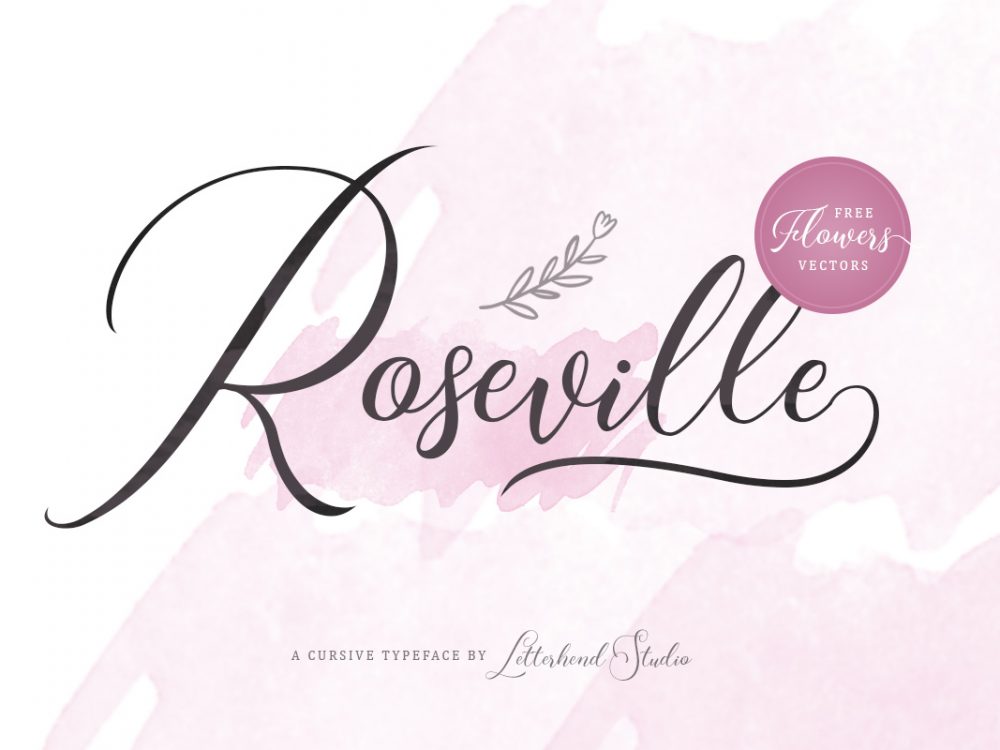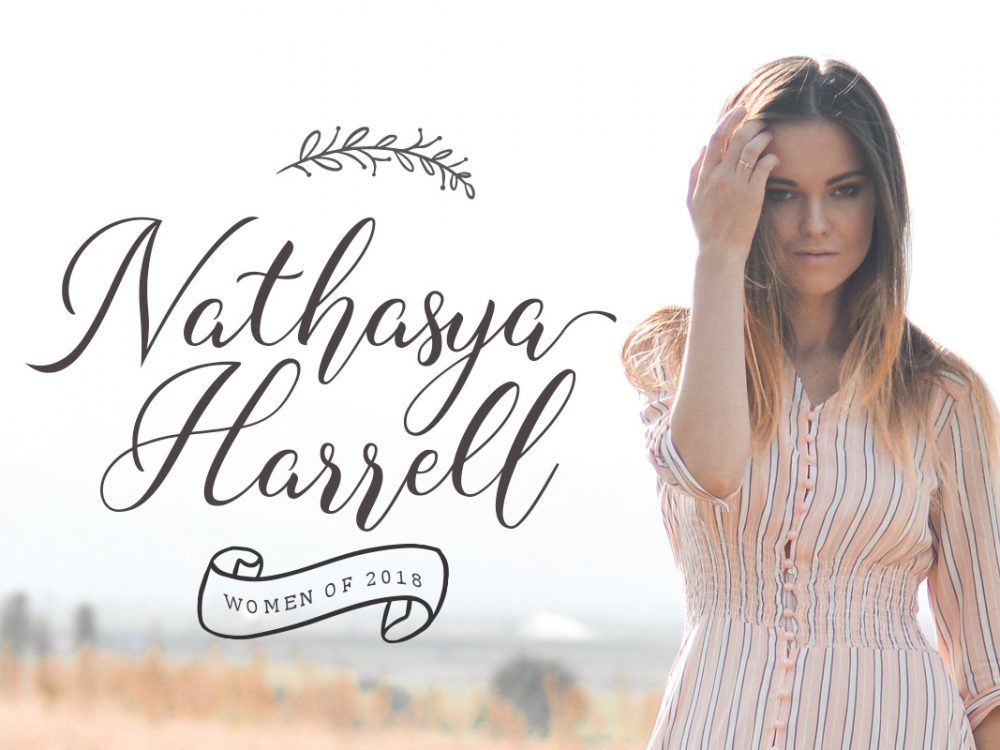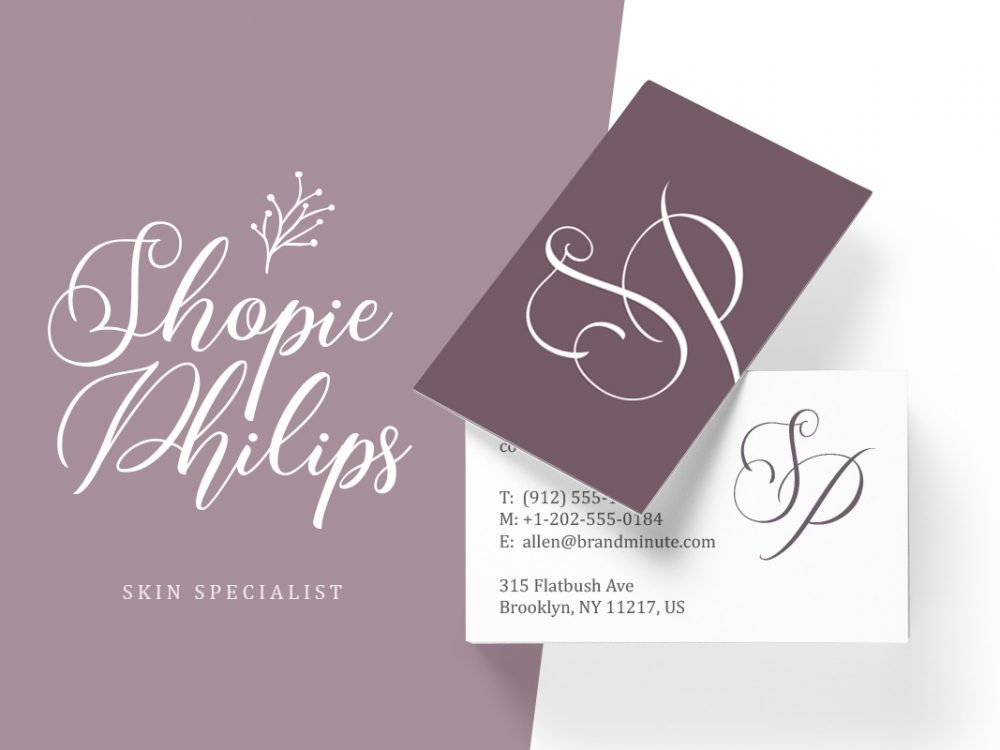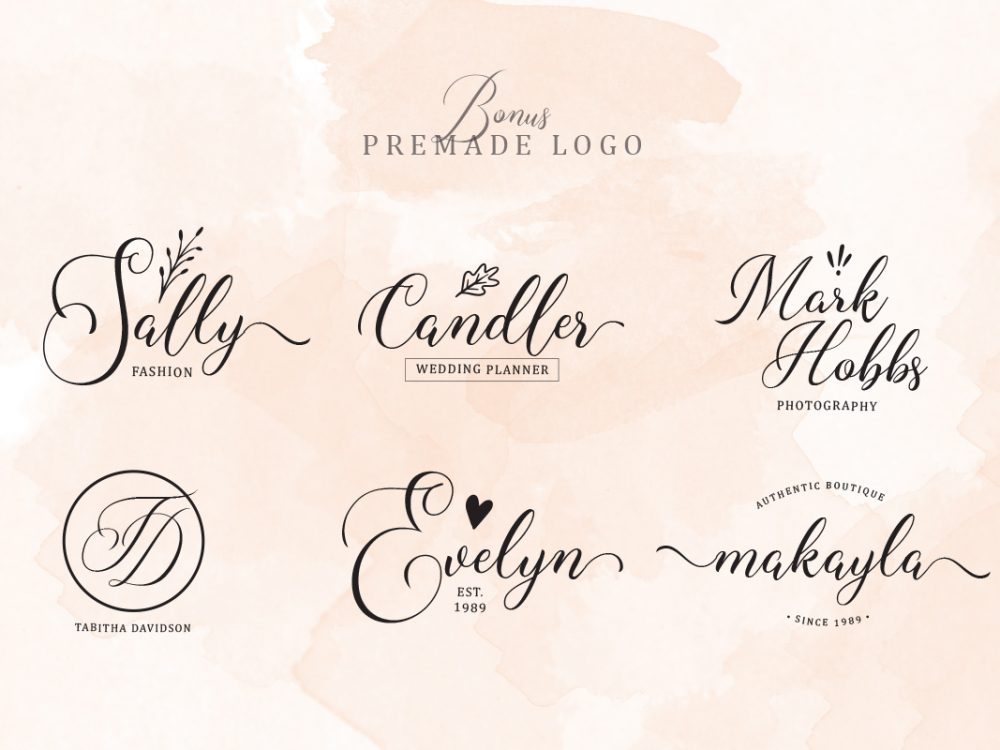
Roseville Free Font
Roseville Free Font is a handwritten font that features an elegant calligraphic style. This font is very suitable for creating various projects that require a scripted handwritten font. You can use this font to create memorable romantic posters, wedding invitations, greeting cards, branding, flyers, t-shirt and pillow prints, logotype, apparel, invitation, branding, packaging, advertising, and more. If you like it don’t forget to check out the full version.